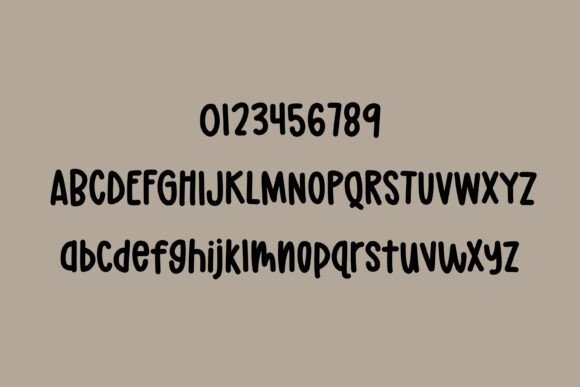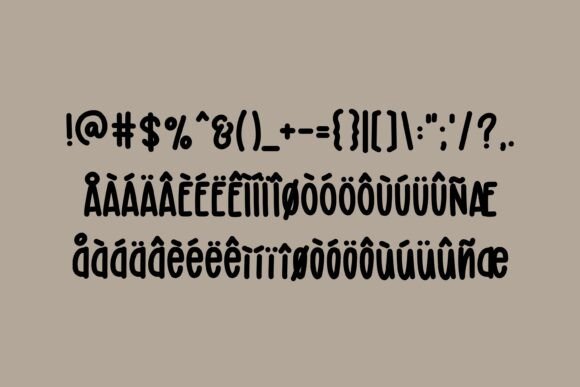
Introduction to Barley Syrup Font
Barley Syrup is a playful and quirky handwritten font that brings a cozy charm to your designs.
With its bold yet whimsical letterforms, itโs perfect for projects that need a touch of warmth and personality Whether youโre crafting invitations, creating logos, or designing packaging, Barley Syrup adds a fun and approachable vibe.
Key Features of Barley Syrup Font
Why Choose Barley Syrup Font?
Barley Syrup Font offers exceptional quality and versatility, making it a valuable addition to your design toolkit. Whether you’re creating for personal projects or commercial use, Barley Syrup Font delivers professional results.